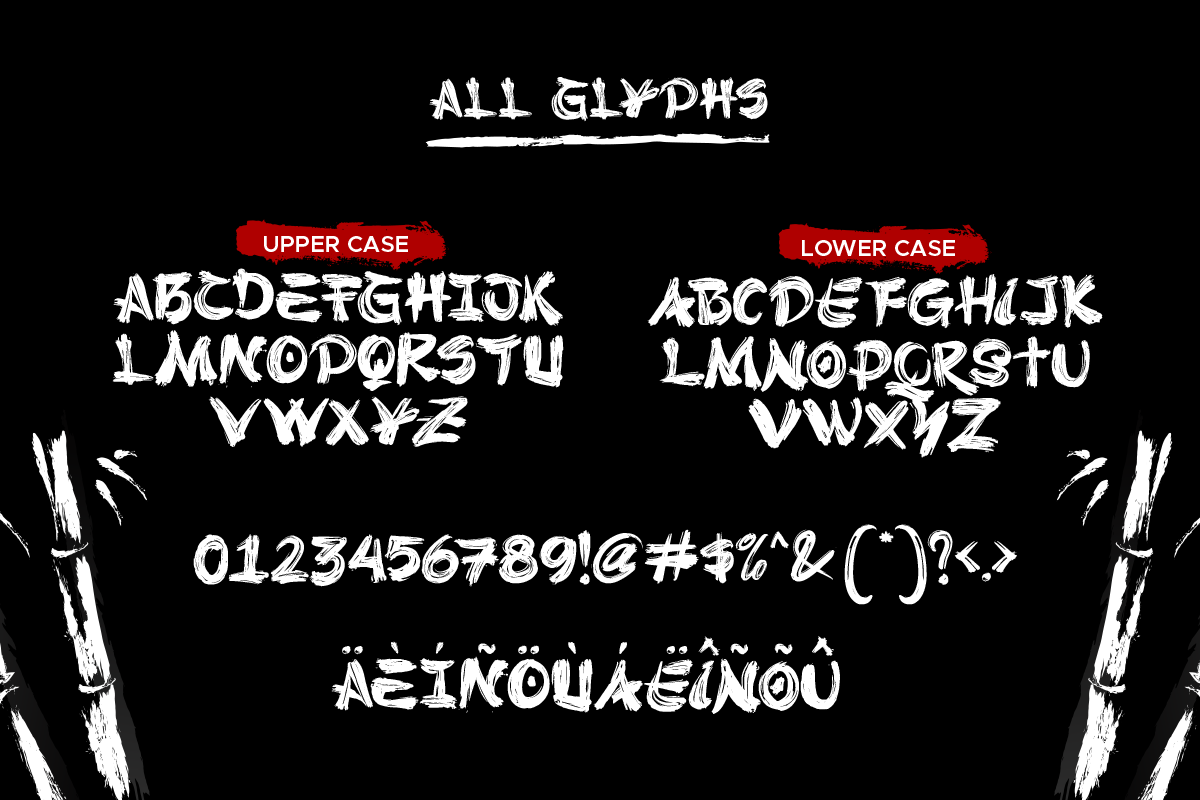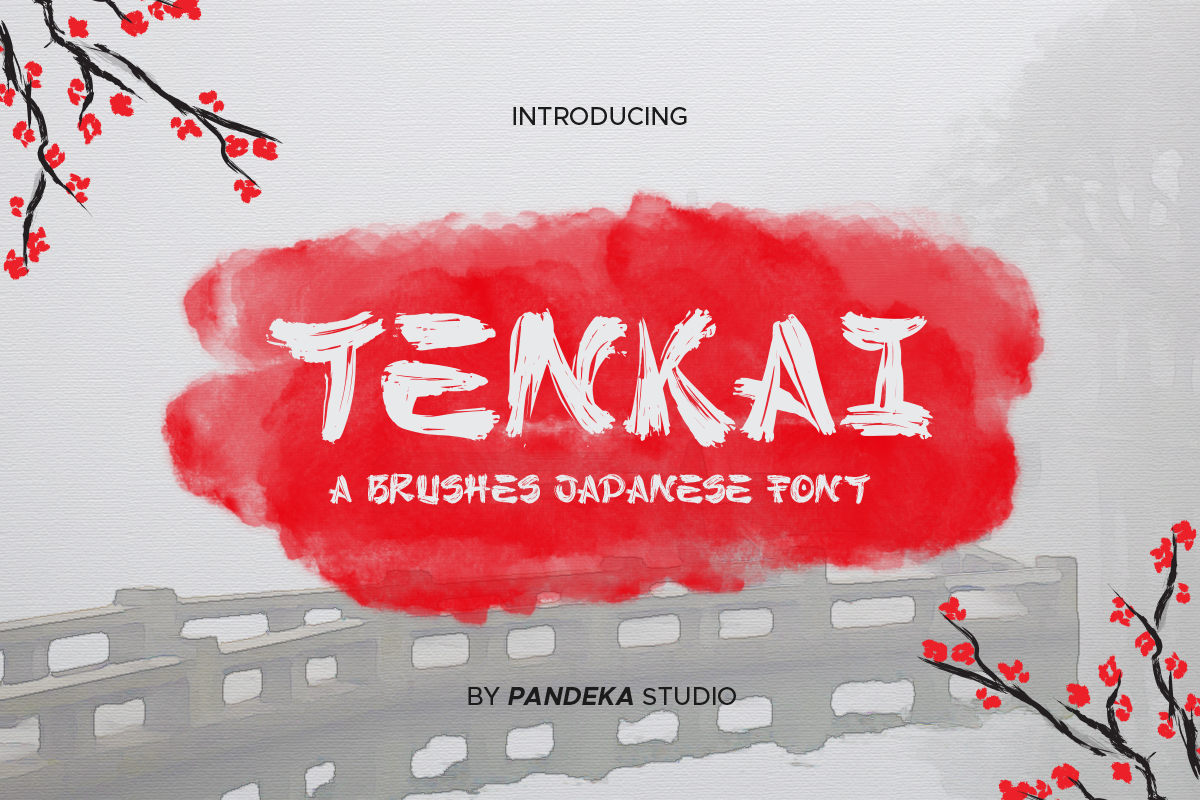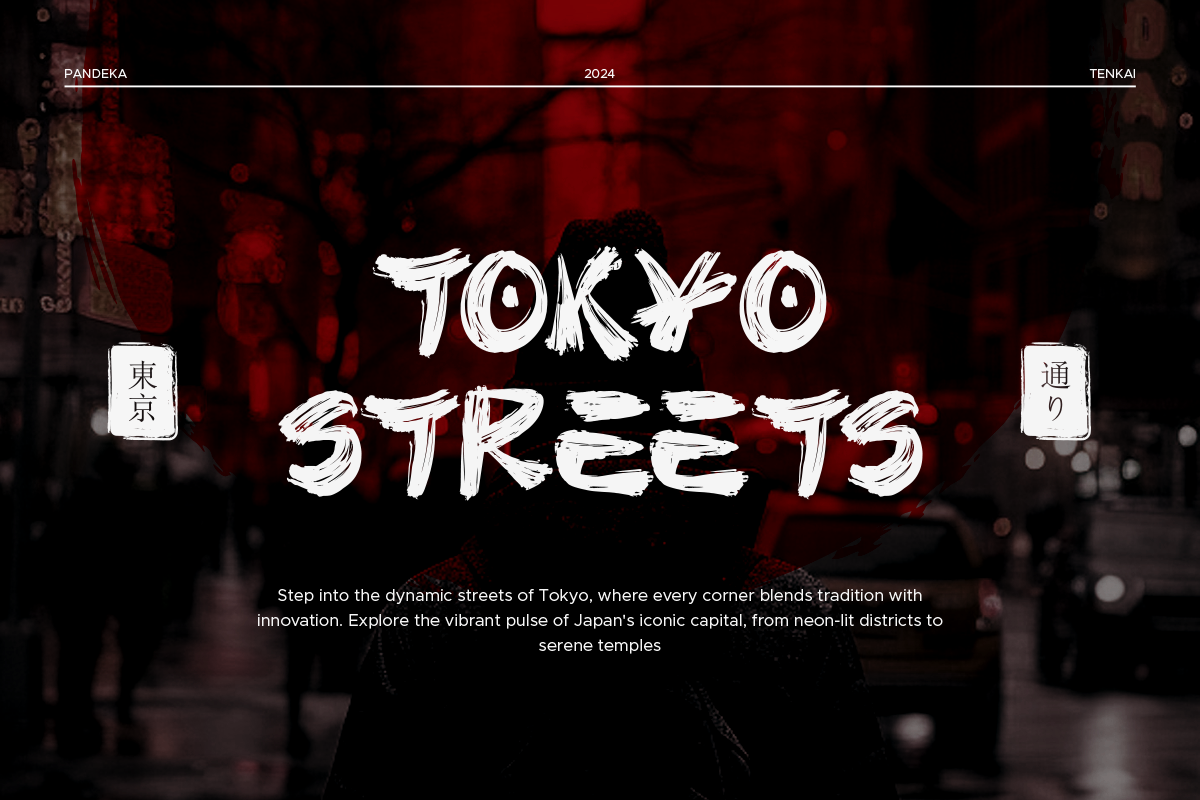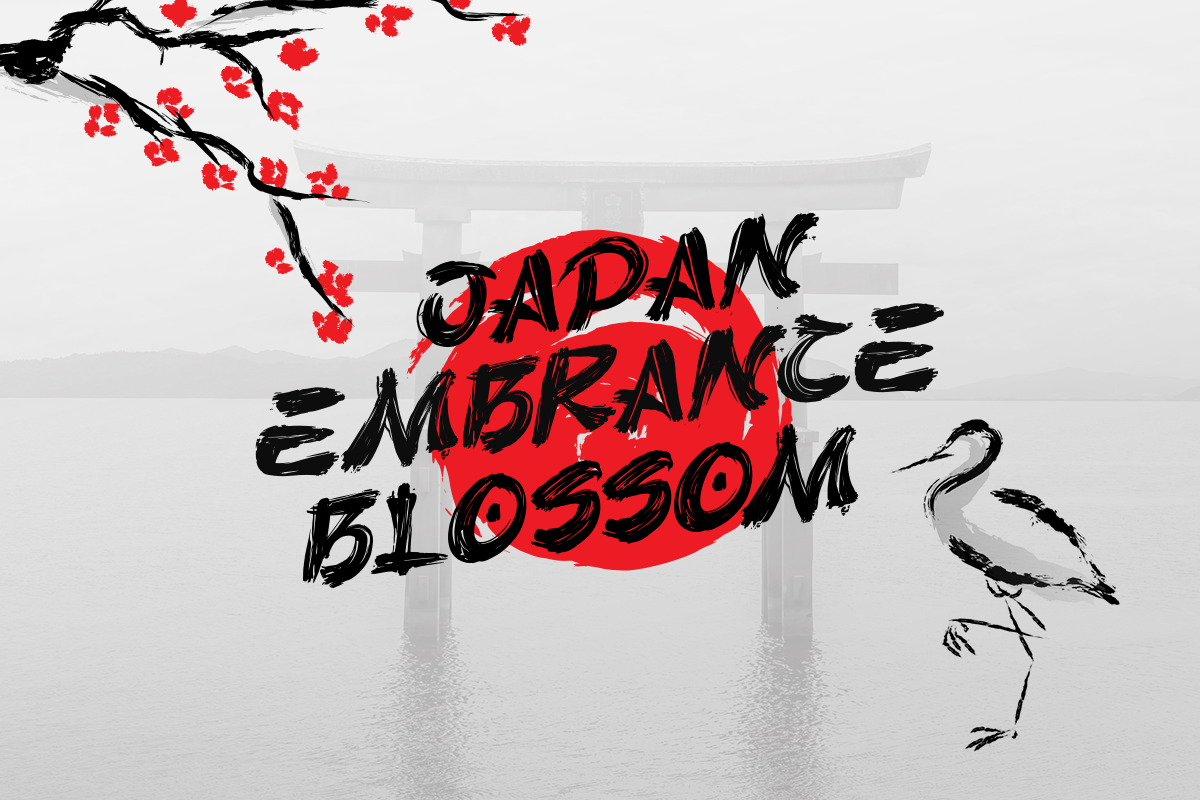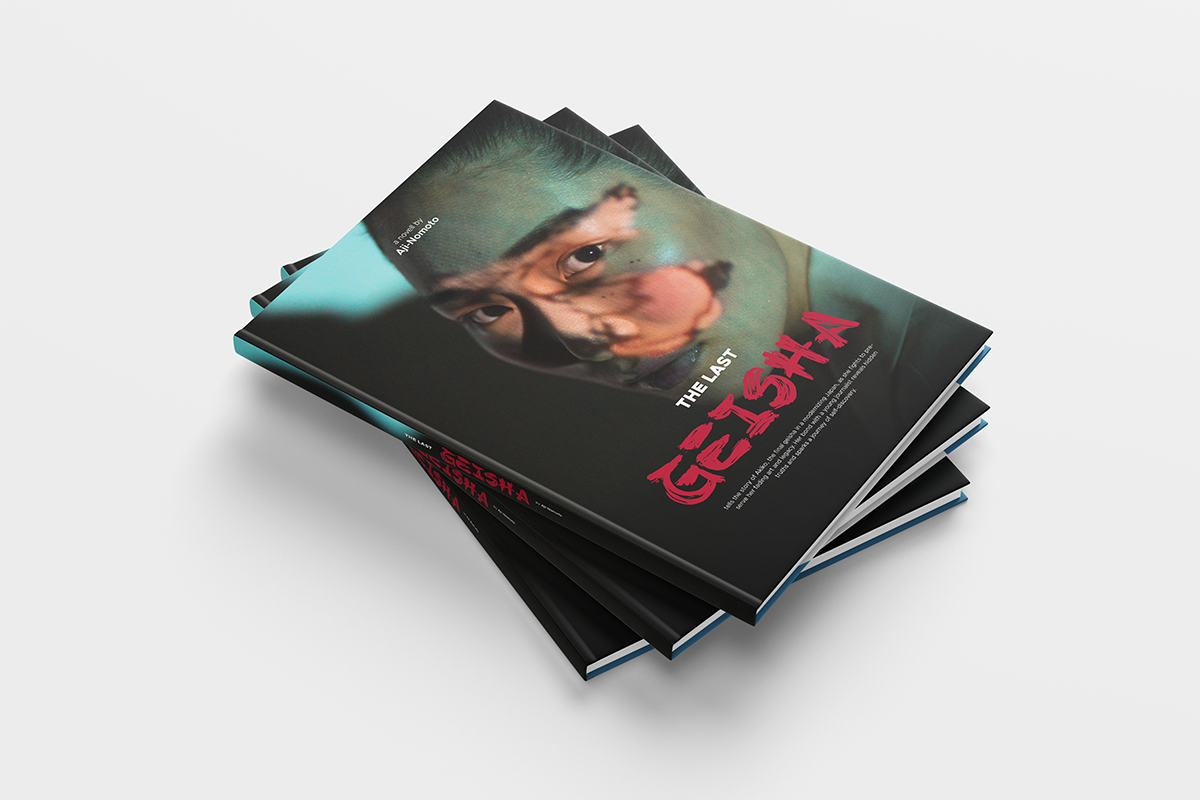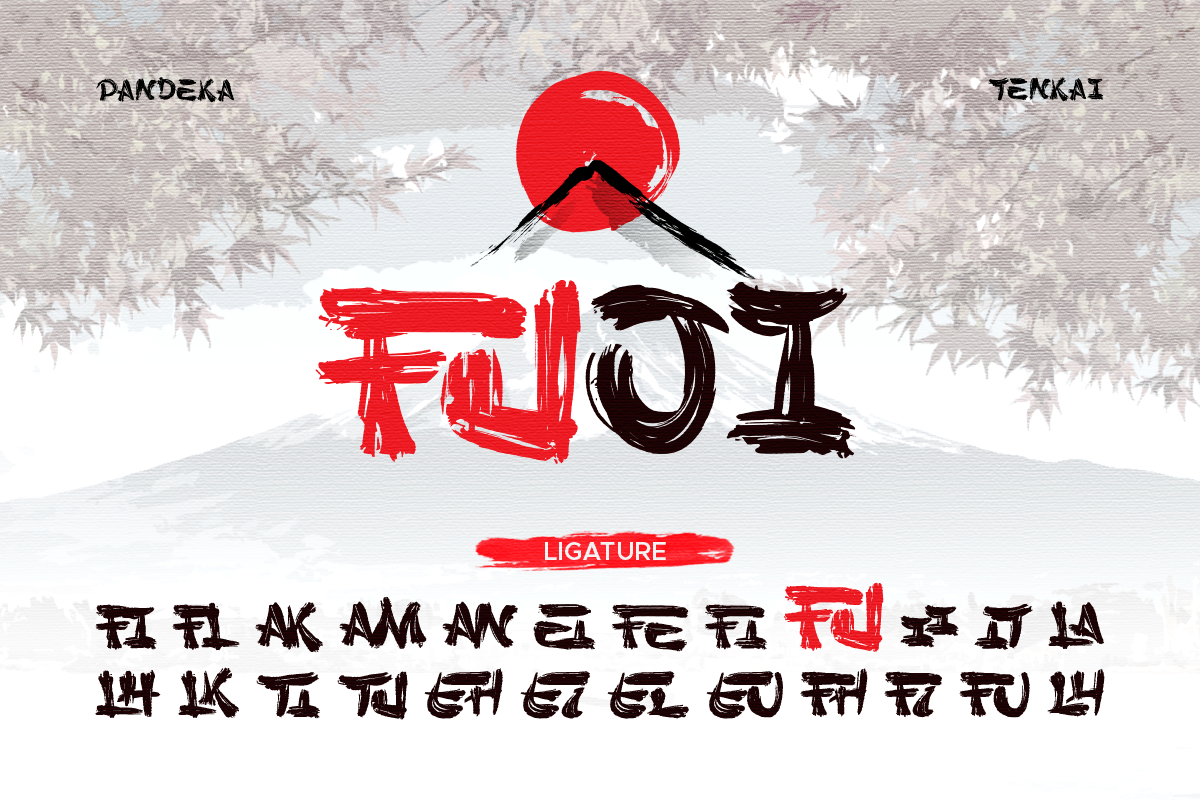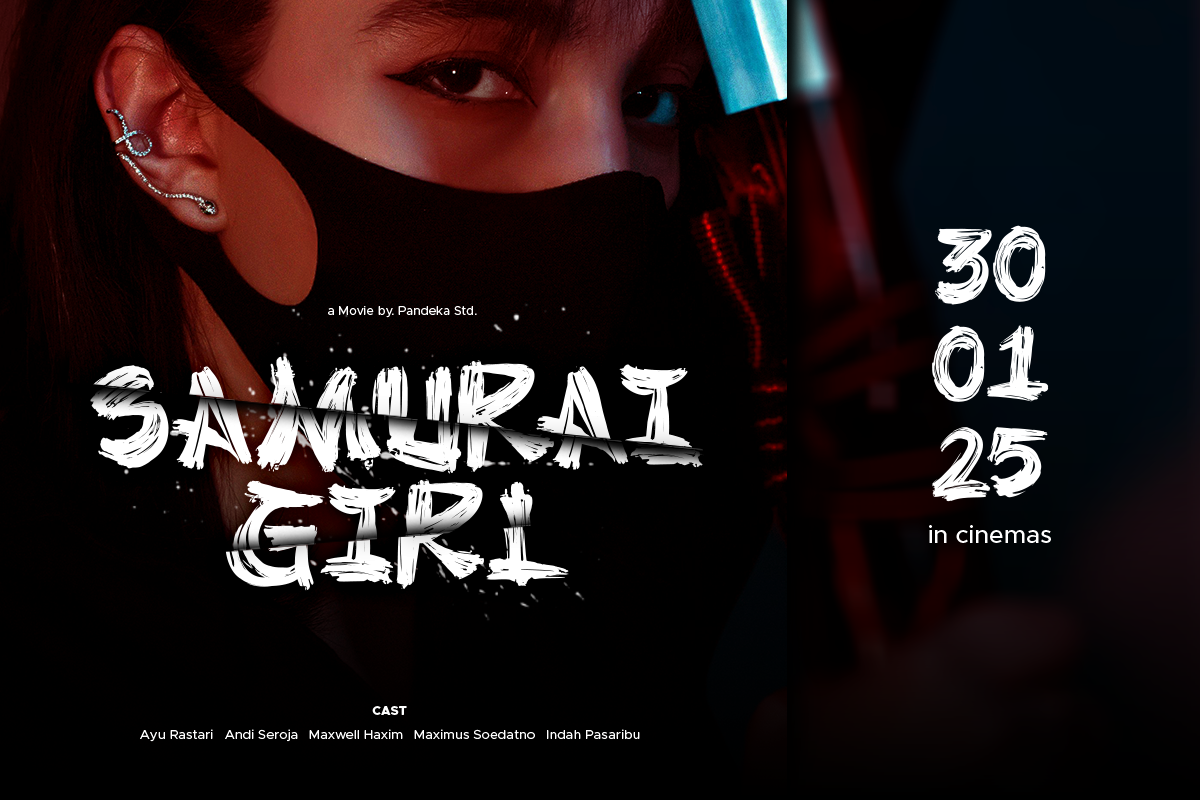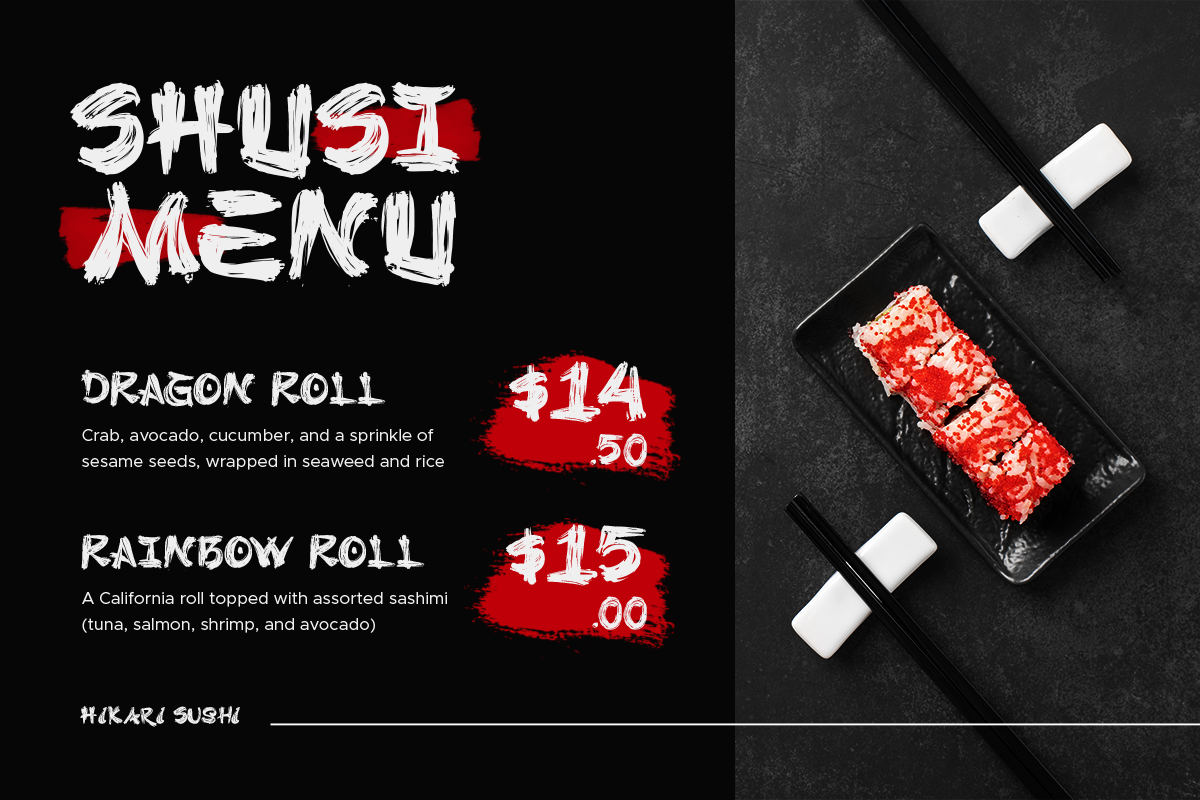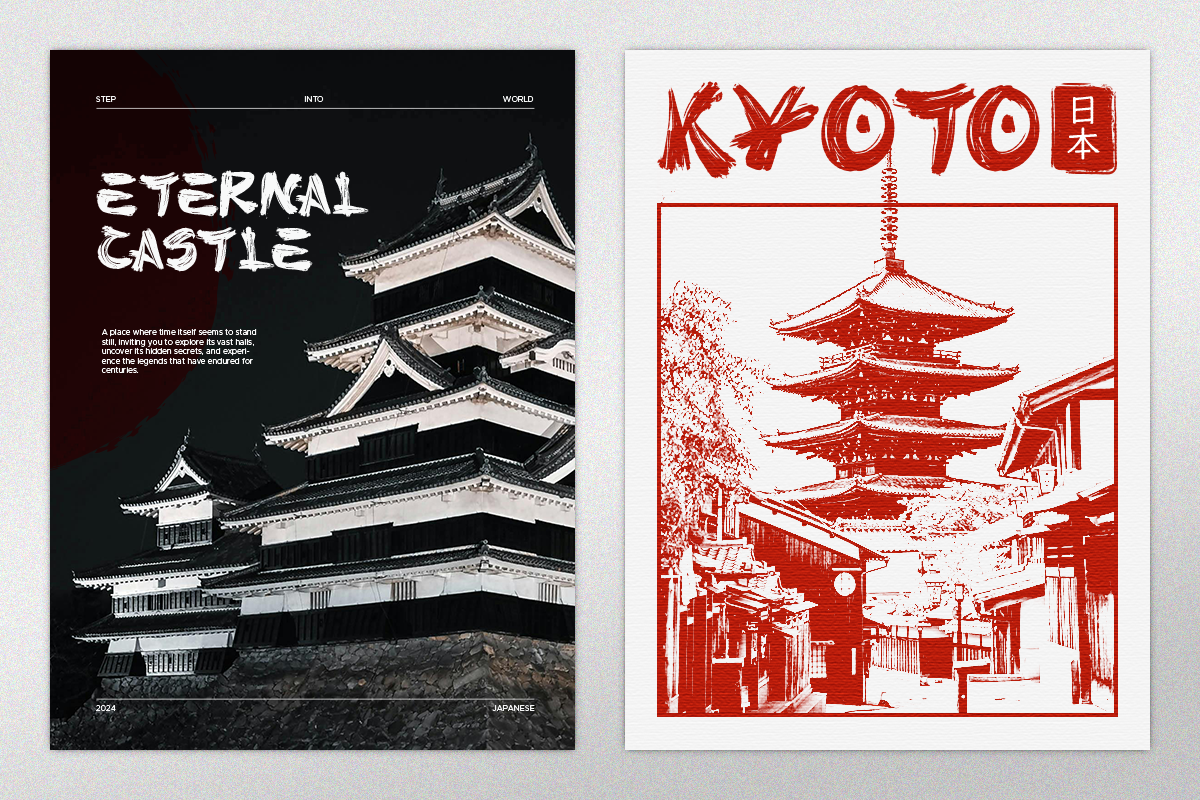
Tenkai - Japanese Brushes Font
Konnichiwa! 🌸 Meet Tenkai, a bold and authentic Japanese brushes font inspired by the beauty and artistry of traditional Japanese culture. Designed with a hand-drawn brushstroke style, Tenkai brings a dynamic and organic feel to your designs. Its imperfect yet harmonious strokes capture the spirit of Japanese calligraphy, making it perfect for projects that aim to evoke tradition, artistry, and elegance.
- Full Character Set: Uppercase, lowercase, numbers, symbols, and punctuation